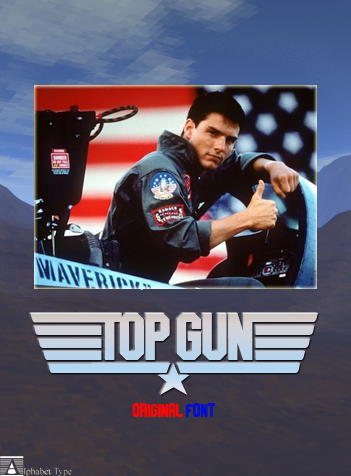
Font name: | Top Gun |
Author: | Alphabet & Type |
TOP GUN font: directly from the Best movie by TONY SCOTT, with TOM CRUISE, the original font for all lovers. |